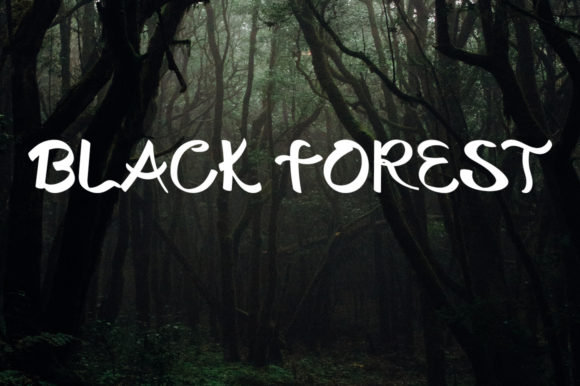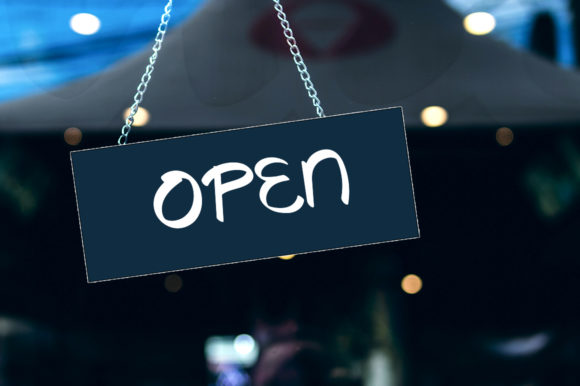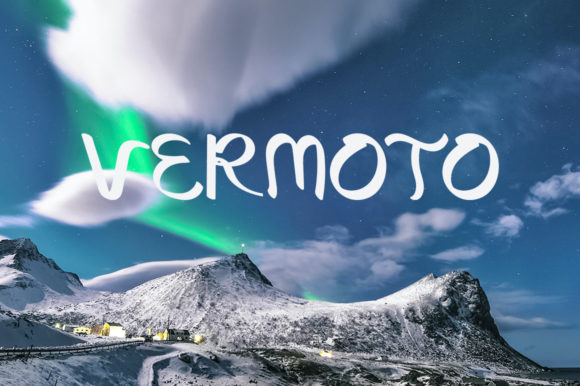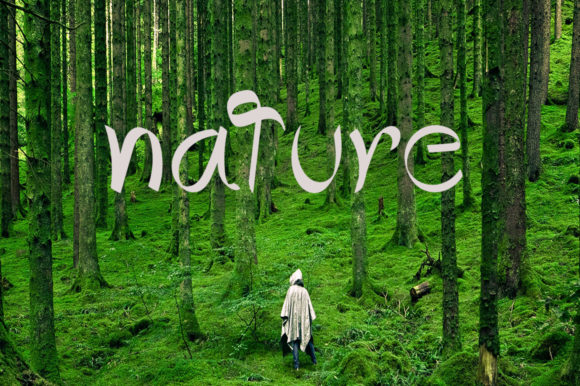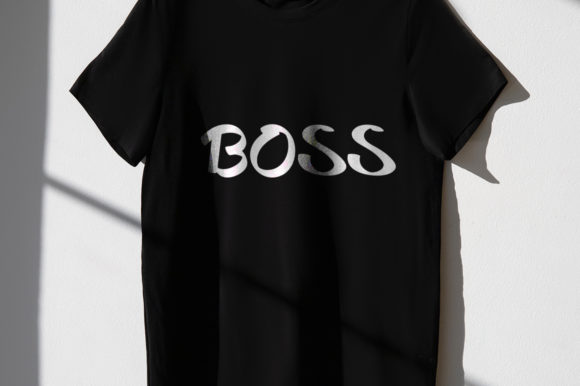
Black Forest Font
About Black Forest Font
Black Forest is a handwritten font. This soft font will look great on any design idea. It will add a fun and romantic touch to any of your projects. Perfect for t-shirts, car decorations, award certificates, cup labels, and more.